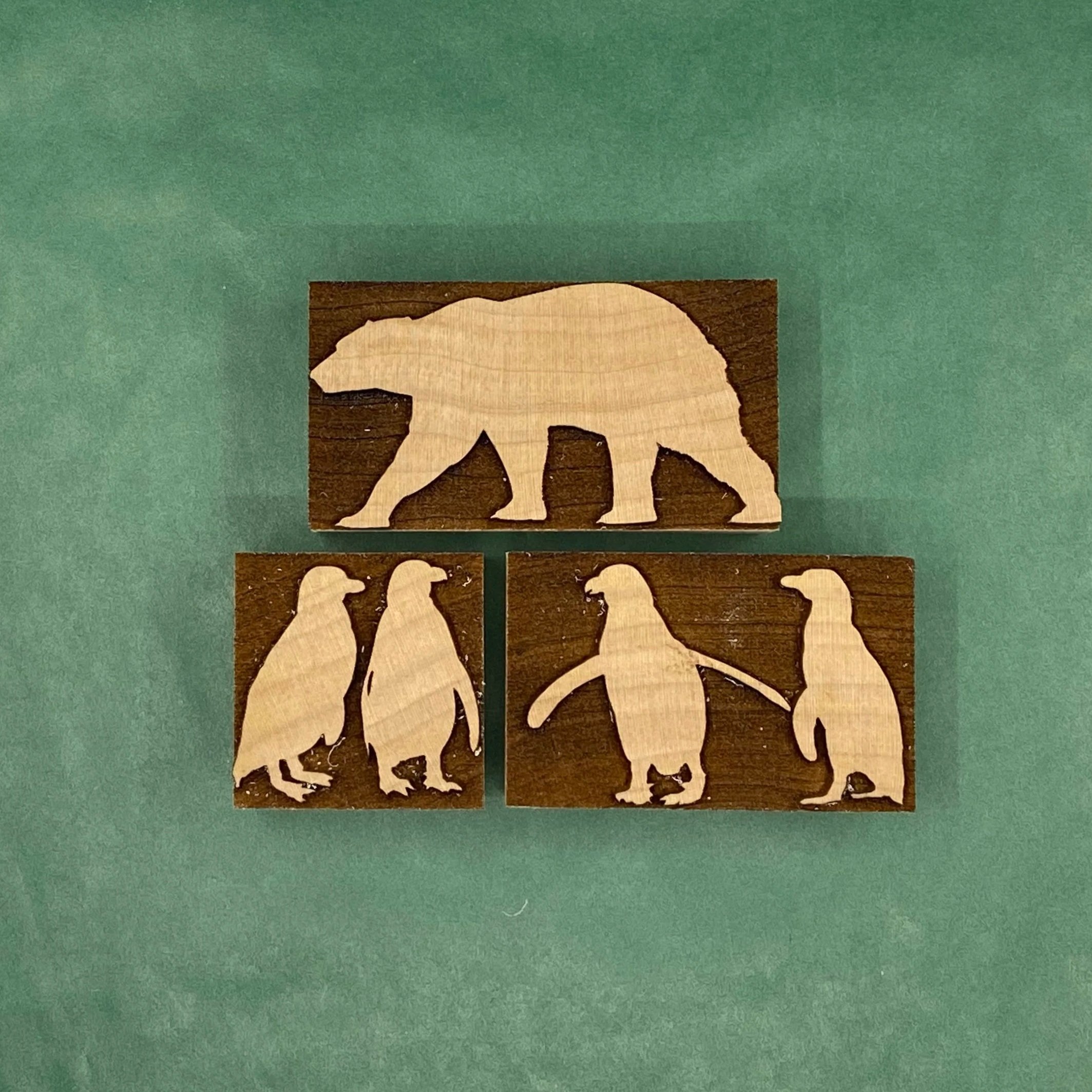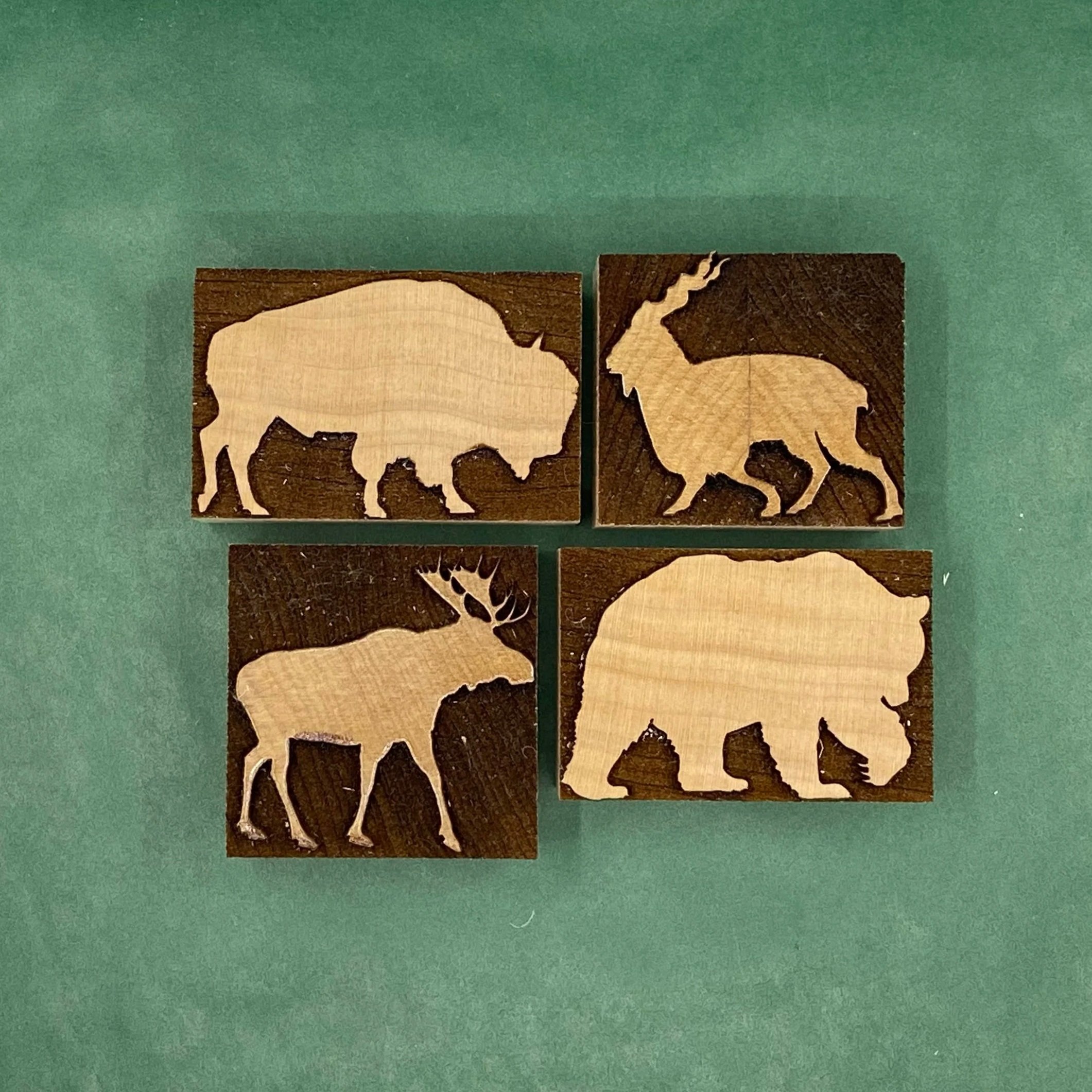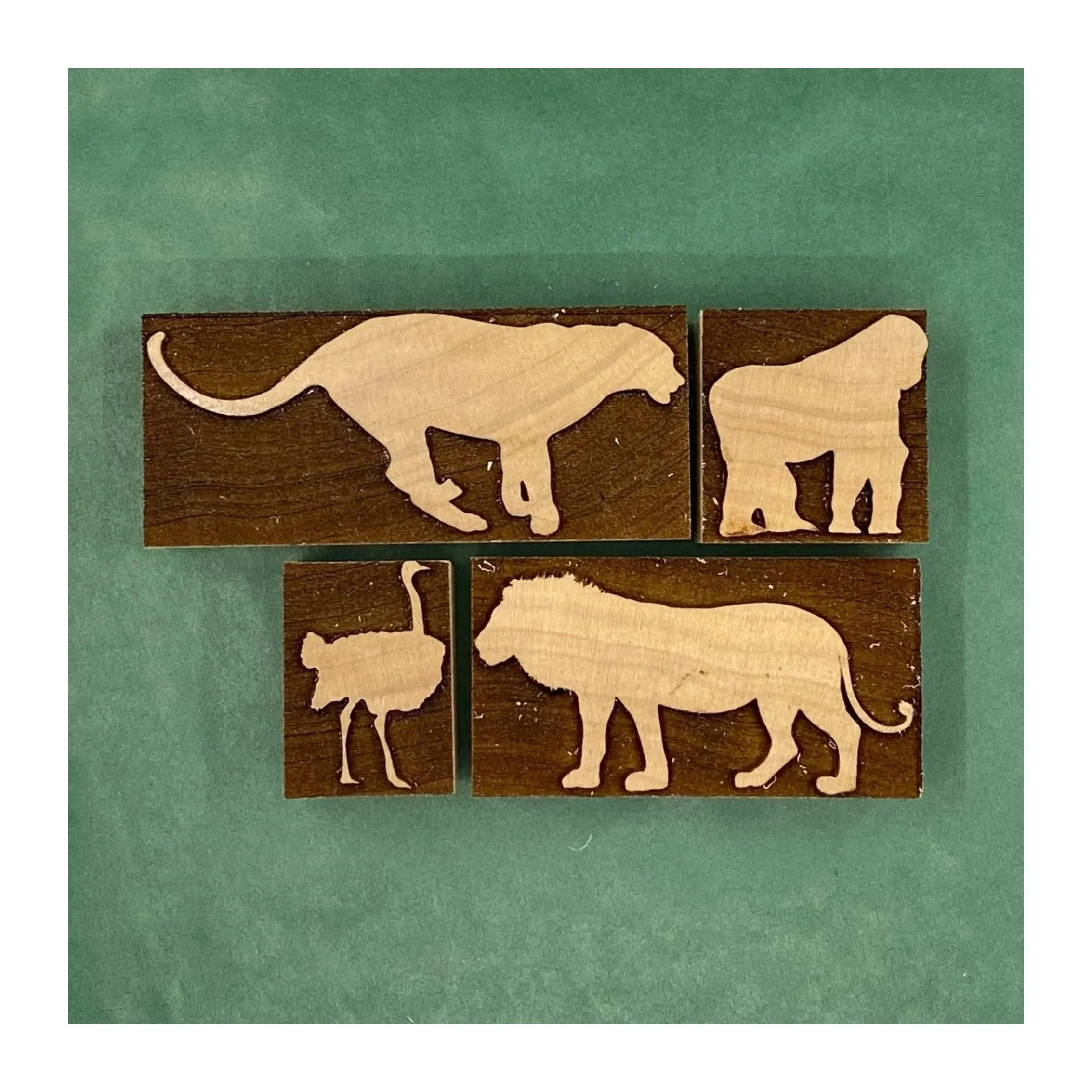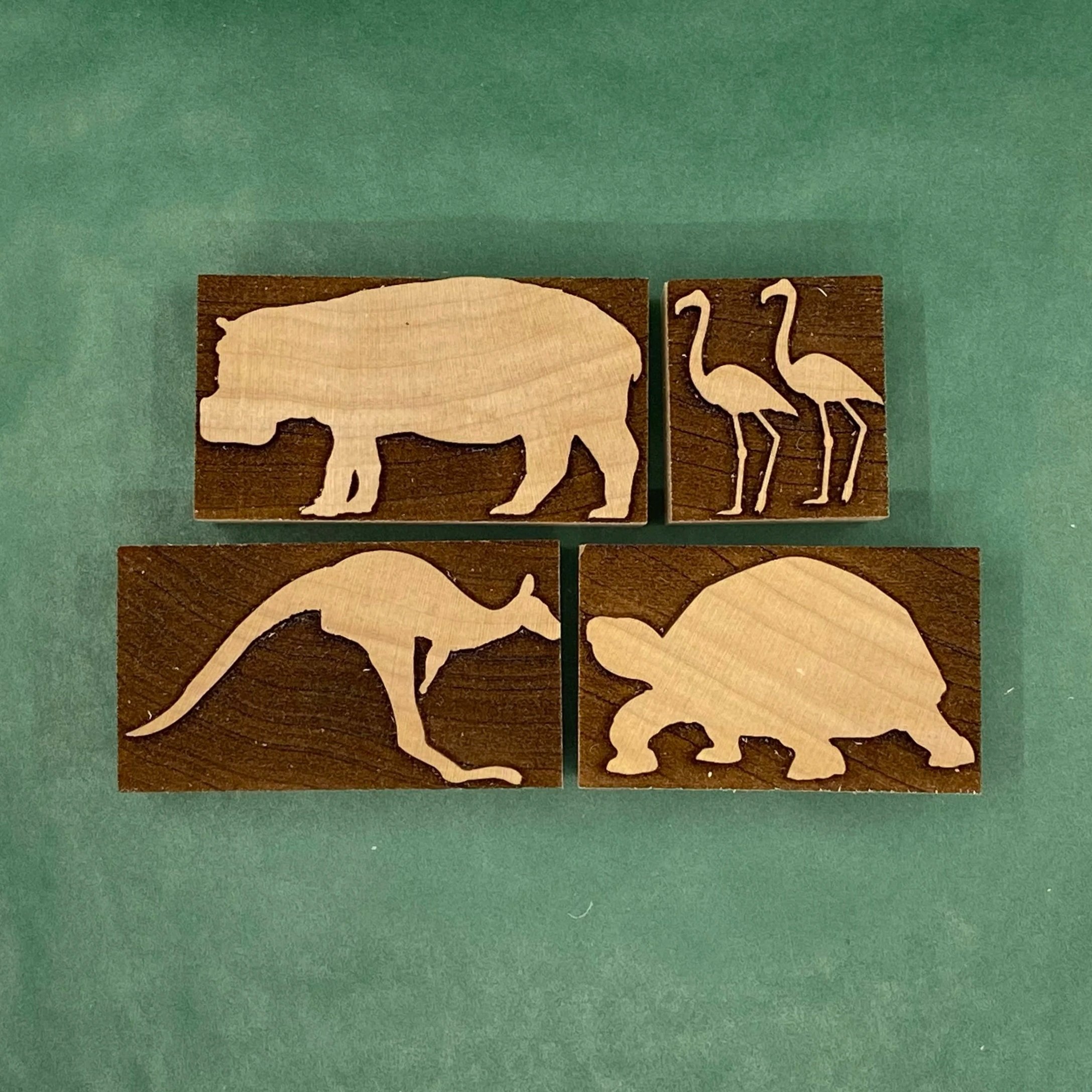
A little menagerie for your typecase.
Scott originally created these animals for a poster for his wife, Roni, who volunteers as a docent at the Columbus Zoo and Aquarium. Each animal was painstakingly traced in Illustrator from photographs.
What started as a poster has grown into five sets of zoo animals, grouped loosely based on their regions at the zoo.
Set 1: Cheetah, Gorilla, Ostrich, Lion
Set 2: Bison, Mountain Goat, Moose, Bear
Set 3: Hippo, Flamingo, Kangaroo, Tortoise
Set 4: Rhino, Elephant, Giraffe, Tiger
Set 5: Polar Bear & Two sets of Penguins